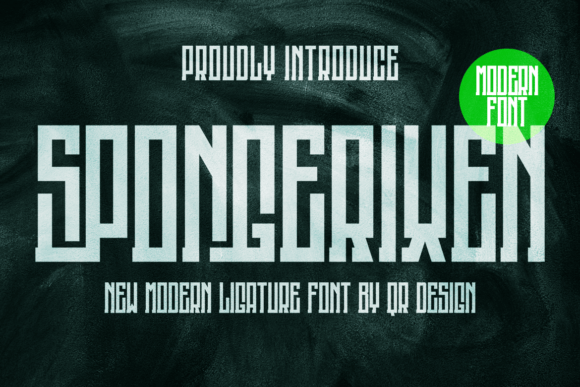
Introducing Spongerixen Font: The Ultimate Display Font for Bold Branding
In the world of typography, fonts play a crucial role in conveying the tone and personality of a brand. When it comes to creating a lasting impression, a well-designed font can make all the difference. This is where Spongerixen Font comes into play – a bold and authentic display font that’s perfect for any branding project. In this article, we’ll dive into the features and benefits of Spongerixen Font, and explore how it can elevate your brand’s visual identity.
What is Spongerixen Font?
Spongerixen Font is a carefully crafted display font that’s designed to make a statement. Its bold and authentic style makes it perfect for use in a wide range of contexts, from logos and t-shirt printing to sports and advertising. The font’s unique design ensures that it stands out from the crowd, making it an excellent choice for brands looking to create a strong visual identity.
Key Features of Spongerixen Font
- Bold and Authentic Style: Spongerixen Font boasts a bold and authentic style that’s sure to grab attention.
- Versatile: The font is suitable for use in a wide range of contexts, including logos, t-shirt printing, sports, and more.
- High-Quality Design: The font is designed with precision and attention to detail, ensuring a high-quality finish.
- Easily Readable: Despite its bold style, Spongerixen Font is easily readable, making it perfect for use in various applications.
Benefits of Using Spongerixen Font
So, why choose Spongerixen Font for your branding project? Here are just a few benefits of using this exceptional display font:
- Creates a Lasting Impression: With its bold and authentic style, Spongerixen Font is sure to create a lasting impression on your audience.
- Enhances Brand Visibility: The font’s unique design ensures that your brand stands out from the competition, enhancing visibility and recognition.
- Perfect for Various Applications: Spongerixen Font is versatile and can be used in a wide range of applications, from logos and t-shirt printing to sports and advertising.
- High-Quality Finish: The font’s high-quality design ensures a professional finish that’s perfect for branding projects.
How to Use Spongerixen Font
Using Spongerixen Font is easy. Here are a few tips to get you started:
- Logos: Use Spongerixen Font to create a bold and memorable logo that showcases your brand’s personality.
- T-Shirt Printing: The font’s bold style makes it perfect for use in t-shirt printing, ensuring your design stands out.
- Sports: Spongerixen Font is ideal for use in sports branding, creating a strong and recognizable visual identity.
- Advertising: The font’s unique design makes it perfect for use in advertising, grabbing attention and creating a lasting impression.
Why Spongerixen Font Stands Out
In a world filled with generic fonts, Spongerixen Font stands out from the crowd. Here are just a few reasons why:
- Unique Design: The font’s unique design ensures that it stands out from other fonts, making it perfect for brands looking to create a strong visual identity.
- Bold and Authentic Style: Spongerixen Font’s bold and authentic style is unmatched, making it perfect for use in a wide range of contexts.
- High-Quality Finish: The font’s high-quality design ensures a professional finish that’s perfect for branding projects.
In conclusion, Spongerixen Font is a bold and authentic display font that’s perfect for any branding project. Its unique design, bold style, and high-quality finish make it an excellent choice for brands looking to create a strong visual identity. Whether you’re looking to create a logo, t-shirt printing design, or sports branding, Spongerixen Font is the perfect choice. So why wait? Download Spongerixen Font today and take your branding to the next level!
- What is Spongerixen Font?: Spongerixen Font is a bold and authentic display font perfect for branding projects.
- What is Spongerixen Font used for?: Spongerixen Font can be used for logos, t-shirt printing, sports, advertising, and more.
- Is Spongerixen Font easy to read?: Yes, despite its bold style, Spongerixen Font is easily readable.